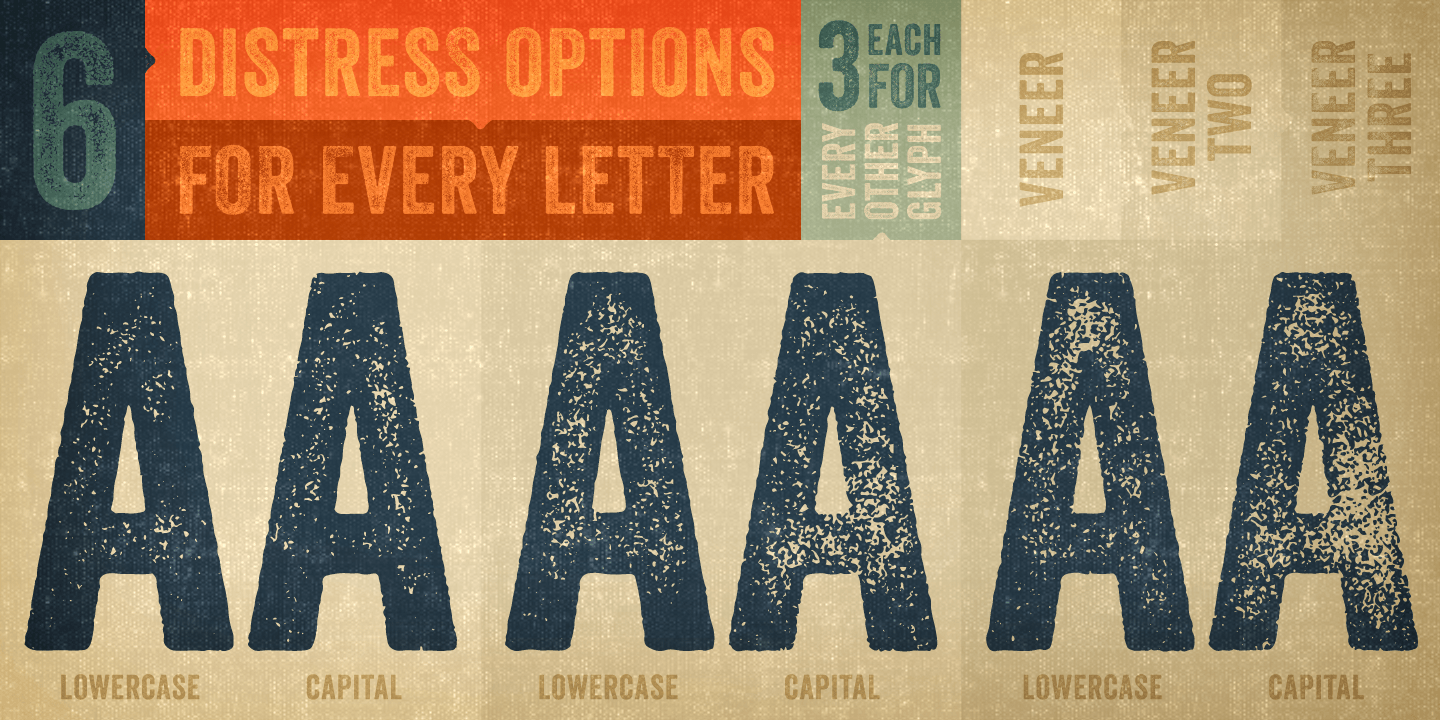
Veneer Solid Font
Veneer Solid Font - This is a condensed vintage style sans serif display font package by yellow design studio. A sans serif typeface with 6 styles, available from adobe fonts for sync and web. Explore veneer designed by ryan martinson at adobe fonts.